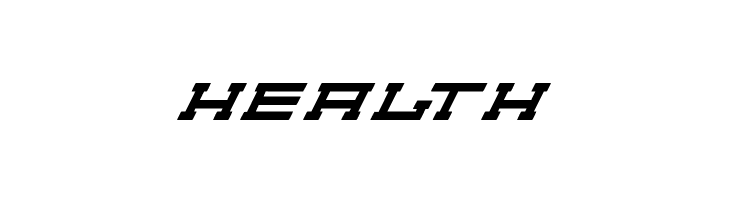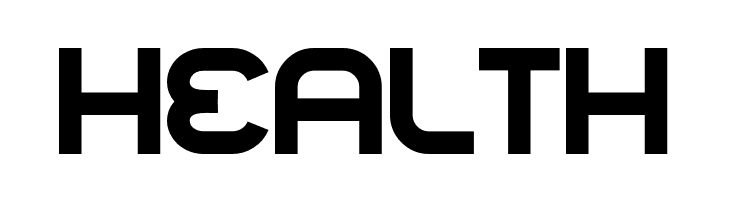
A bold, abstract font with circular motifs and artistic design.
A bold, decorative font with geometric shapes and unique cut-out patterns.
A modern, clean sans-serif font with excellent legibility and balance.
A bold, robust font with thick strokes and clear legibility.
A bold, angular font with a futuristic and mechanical style.
A lively and elegant script font with fluid, cursive strokes.
A flowing, cursive font with elegant, sweeping curves and a handwritten style.
A bold, modern geometric font with a sleek and professional appearance.
A bold, geometric font with a modern, futuristic aesthetic.
An angular, runic-inspired font with sharp, straight lines and a historical feel.